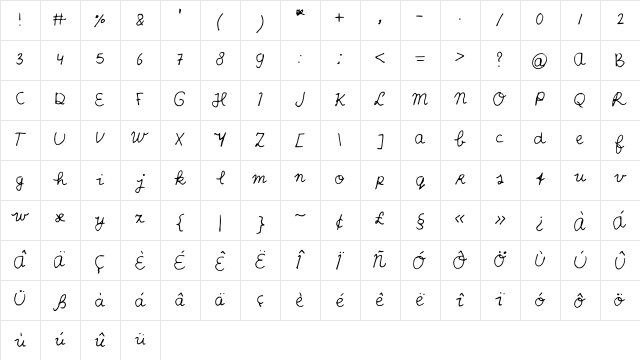
Complete Scribble_Scrabble Medium glyph index. Displaying only characters natively supported by Scribble_Scrabble Medium font.
Scribble_Scrabble is a composed and adaptable typeface that performs quietly and consistently across a wide range of design contexts.